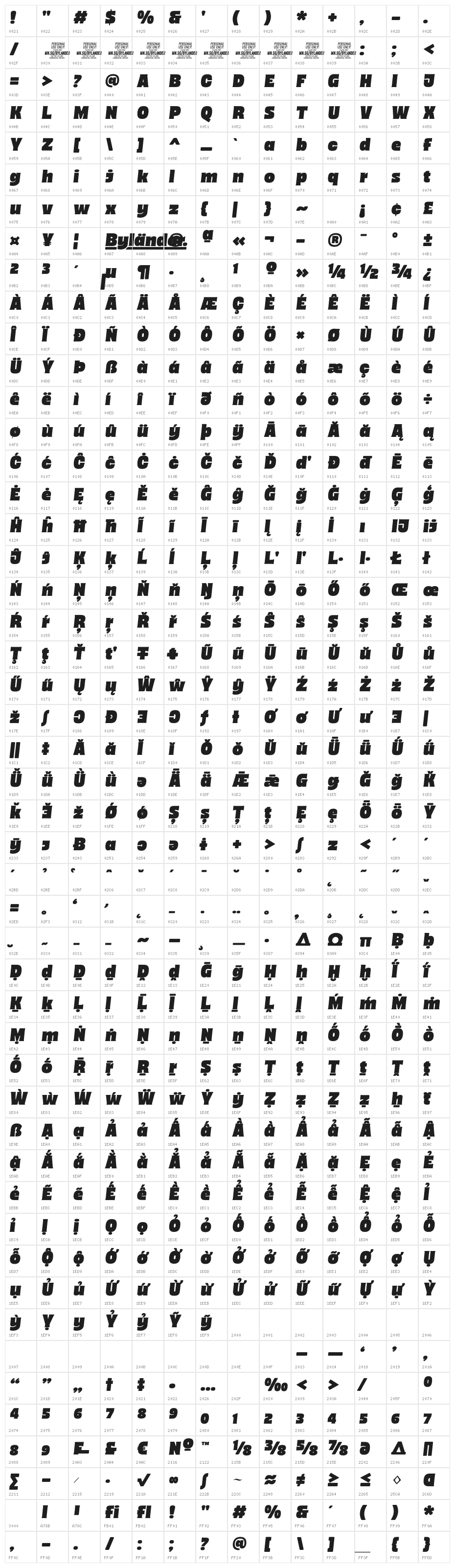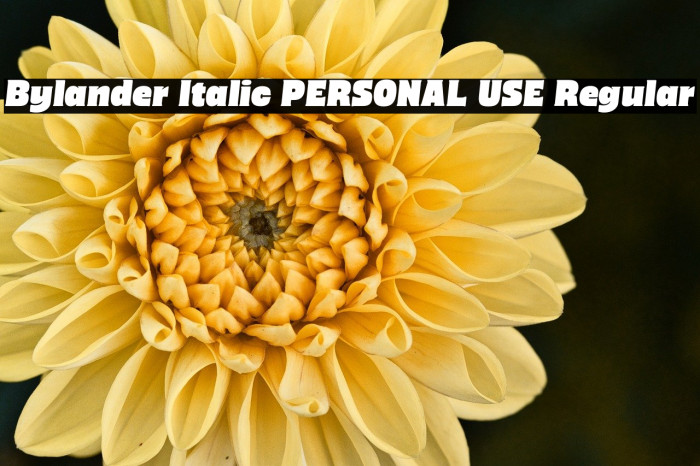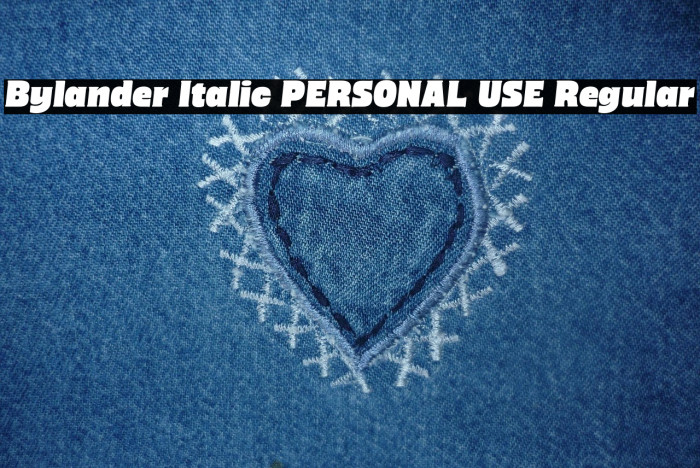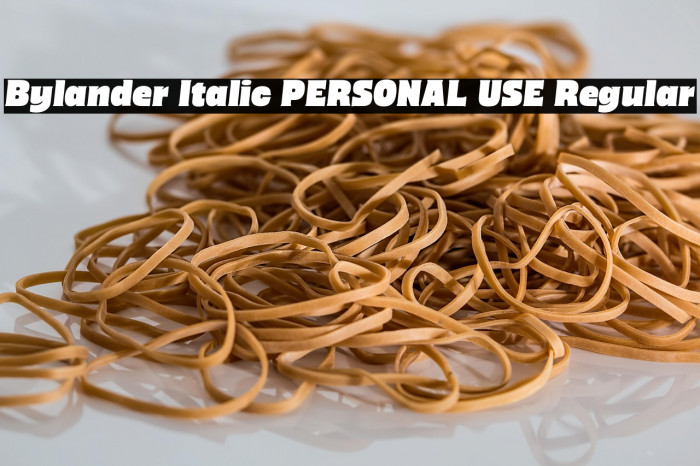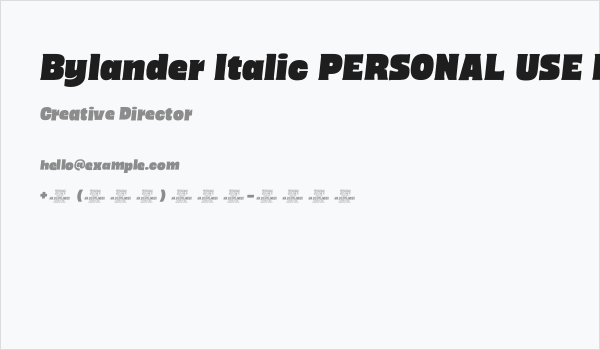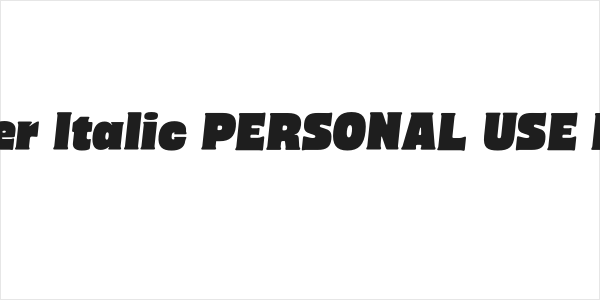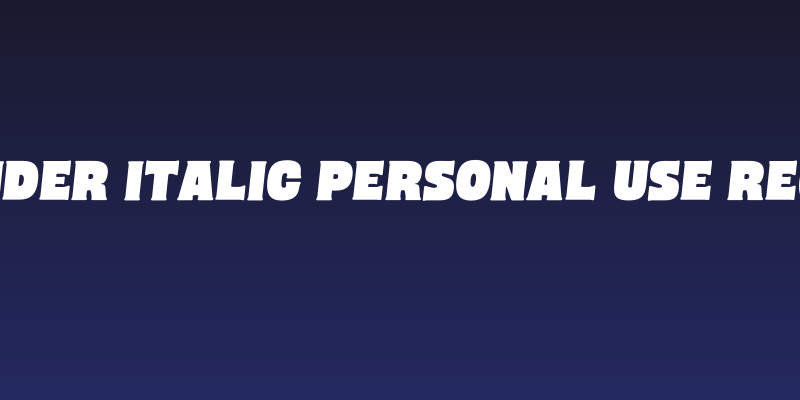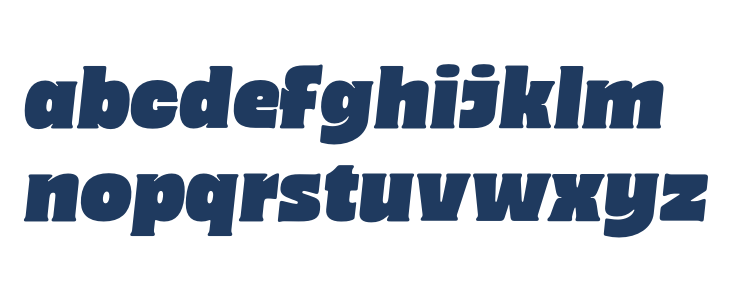
Bylander Italic PERSONAL USE Regular Font
Bylander Italic PERSONAL USE Regular Description
This font features a bold and dynamic style with a strong italic slant, giving it a sense of movement and energy. The characters are thick and robust, with a slightly condensed appearance that enhances its impactful presence. The uppercase and lowercase letters maintain a consistent weight, contributing to a cohesive look. The font includes a full set of numerals and a variety of special characters, making it versatile for different design needs. Its boldness and unique style make it suitable for attention-grabbing headlines and creative projects.